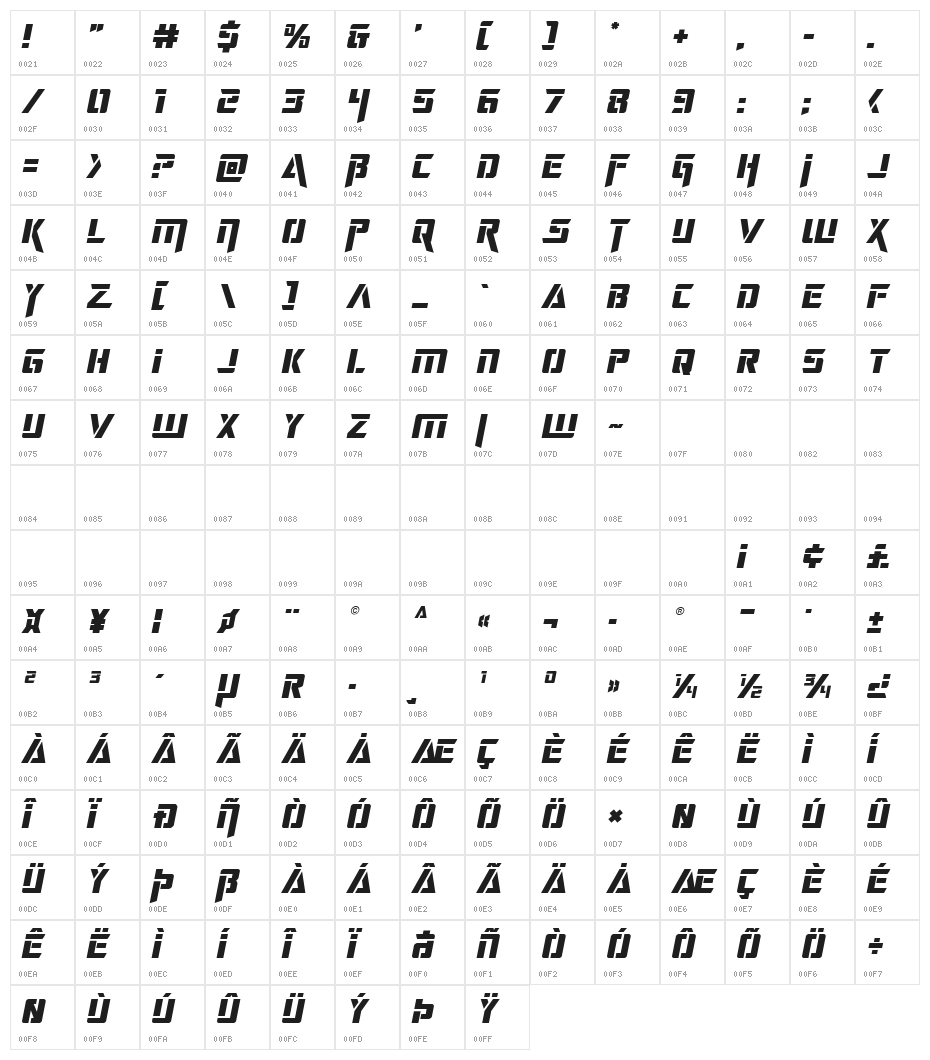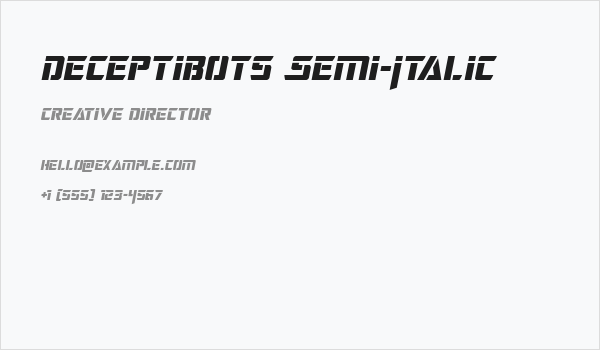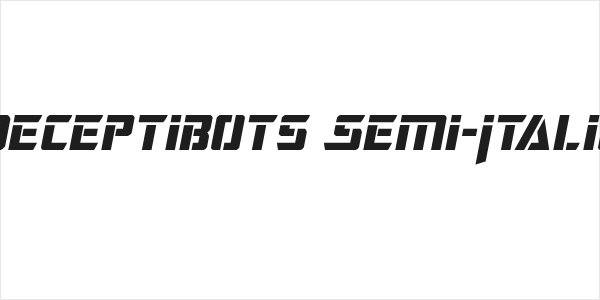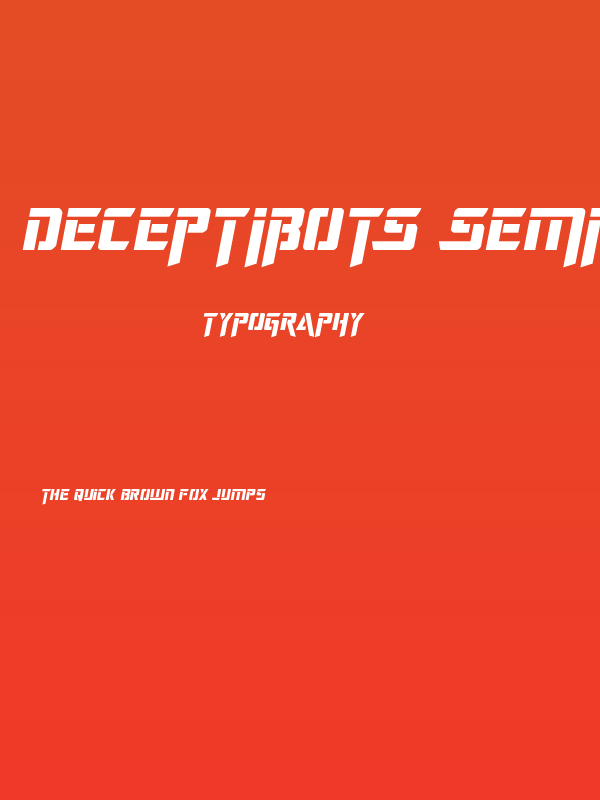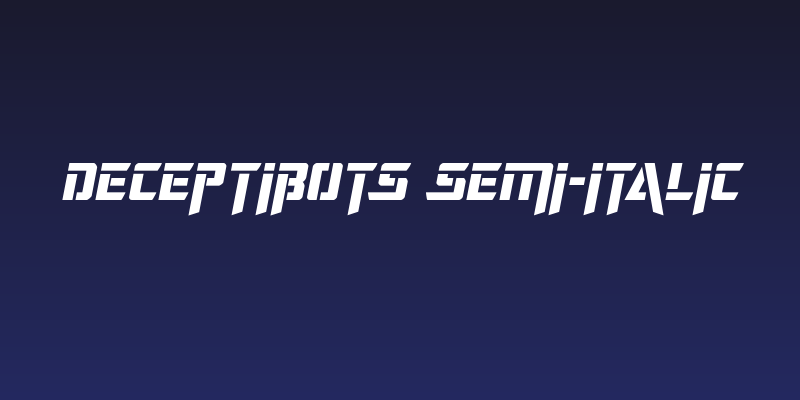
Deceptibots Semi-Italic Font
Deceptibots Semi-Italic Description
This font exhibits a bold, futuristic design with sharp, angular lines and a distinct slant, giving it a dynamic and energetic appearance. The uppercase and lowercase letters maintain a consistent style, characterized by their geometric shapes and strong presence. The numbers and special characters follow the same design principles, ensuring uniformity across all elements. The font's unique style makes it stand out, ideal for projects that require a modern and edgy look. Its boldness and angularity suggest a sense of movement and speed, making it suitable for technology-related themes or any creative project that aims to convey innovation and forward-thinking.
| Overall Style | Futuristic, Modern |
| Proposed Projects | Ideal for technology branding, video game titles, sci-fi movie posters, and modern advertising campaigns. |